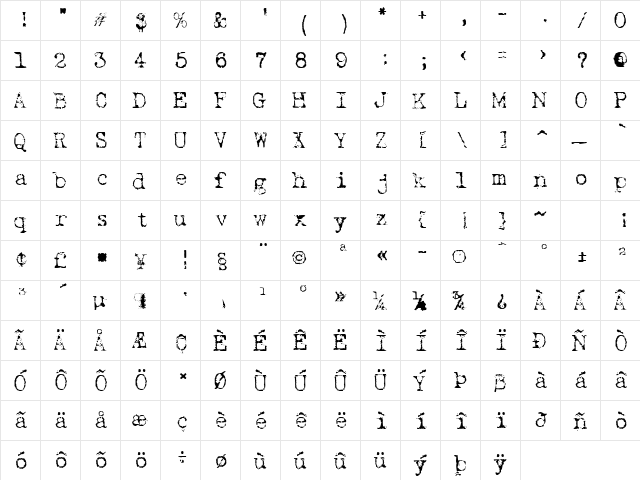
Typewriter New Roman Regular
Design Context for Typewriter New Roman Typeface
Typewriter New Roman brings the precise, column-aligned rhythm of monospaced typography to designs that value technical clarity and systematic order.
Pro Tip: Use Typewriter New Roman with slightly increased line-height for extended reading — fixed-width spacing can feel dense in longer passages without extra breathing room.